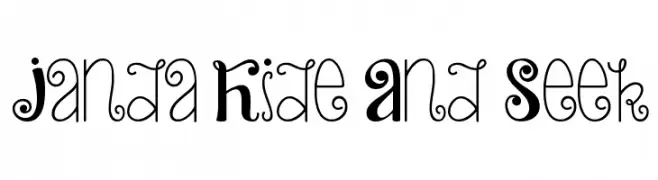
A playful, handwritten font with fluid strokes and a casual appearance.
An elegant, flowing script font with a sophisticated, artistic style.
A whimsical, hand-drawn font with elongated, thin characters and artistic flair.
A whimsical and decorative font with playful curls and swirls.
An intricate, decorative monogram font with elaborate swirls and flourishes.
An intricate, decorative font with elaborate swirls and flourishes.